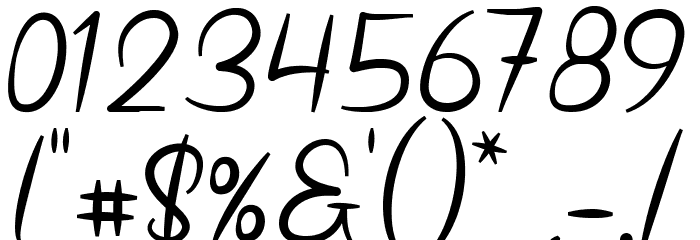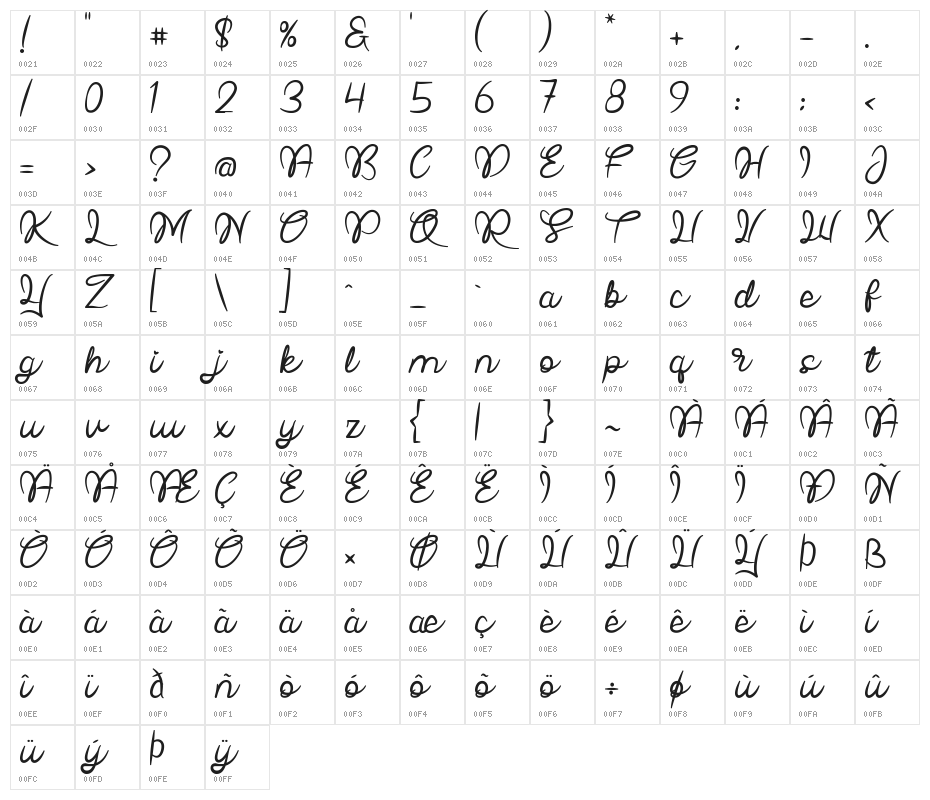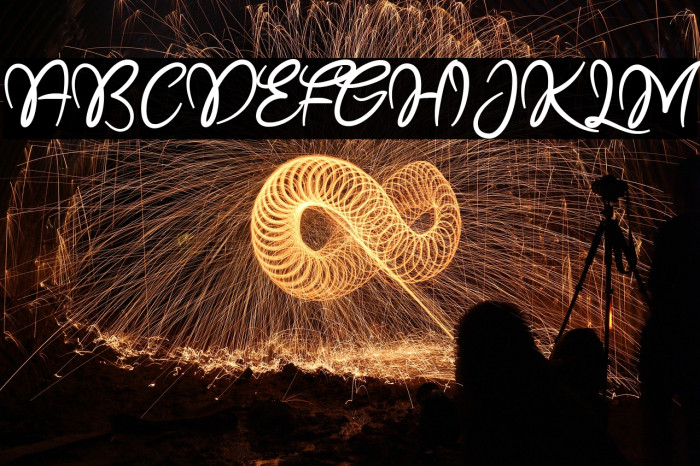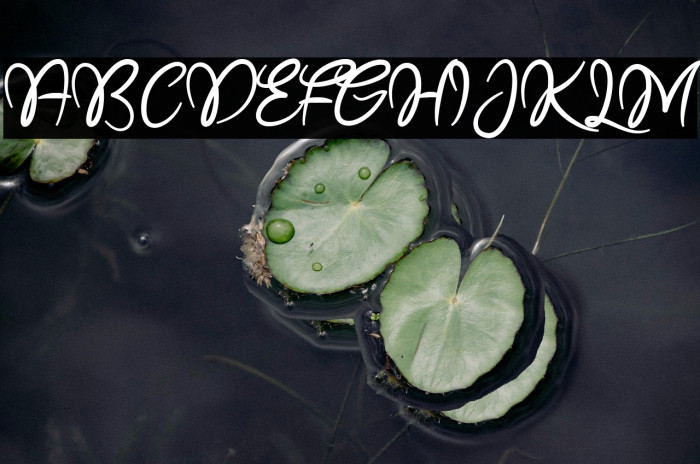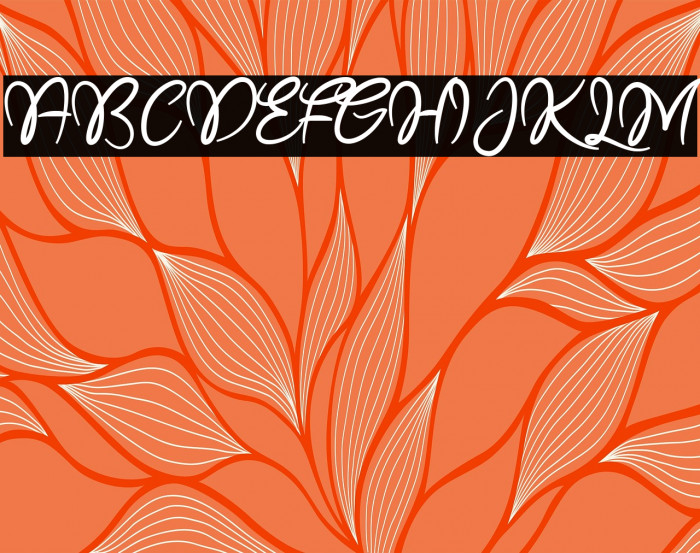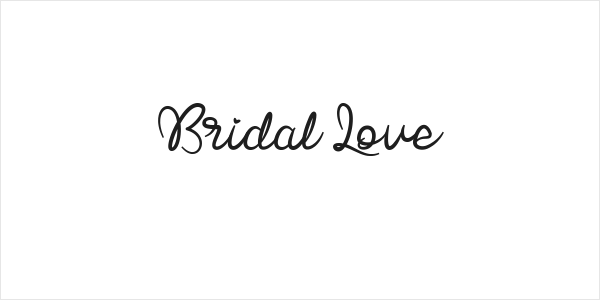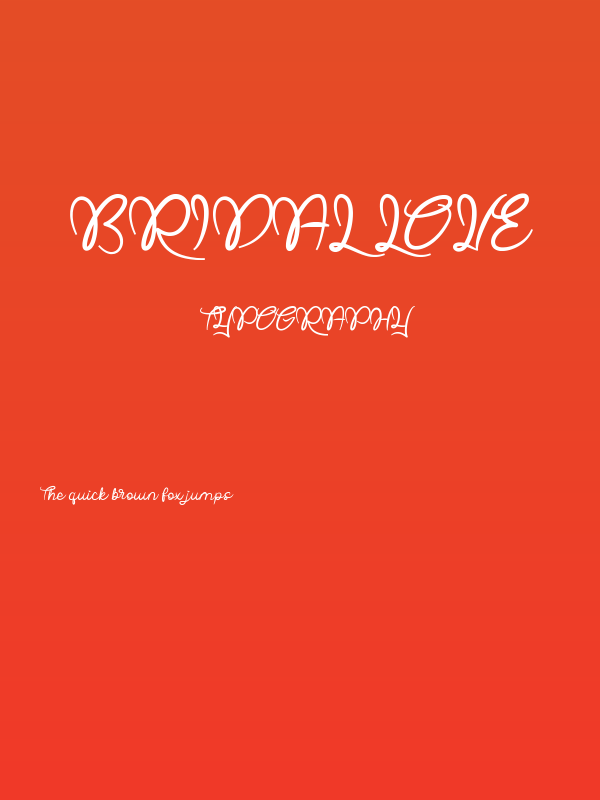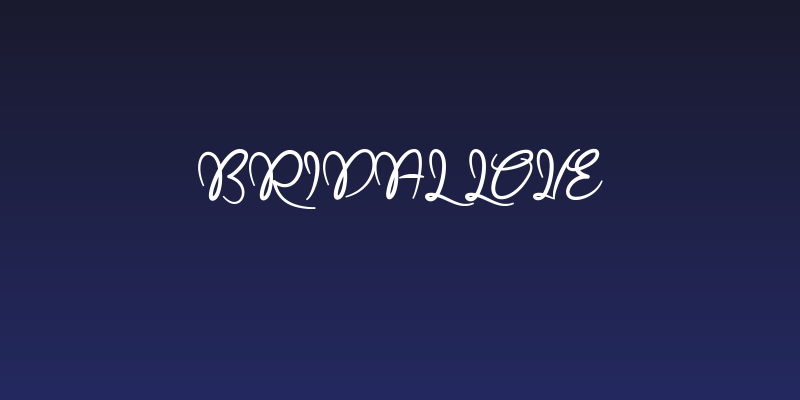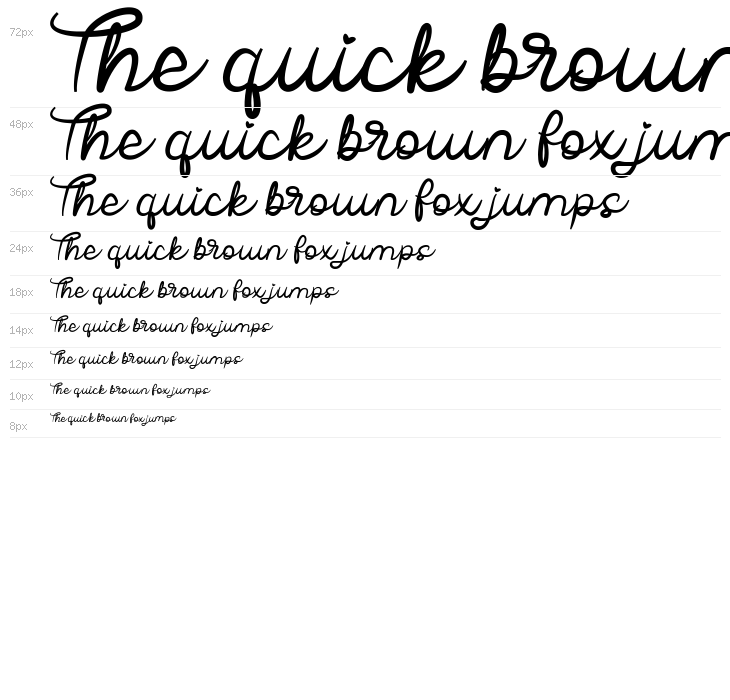
Bridal Love Font
Bridal Love Description
This font exudes elegance and romance with its flowing, cursive style. The letters are interconnected, creating a seamless and graceful appearance. The uppercase characters are particularly ornate, featuring loops and swirls that add a touch of sophistication. The lowercase letters maintain a consistent flow, complementing the uppercase with their smooth curves. Numbers and special characters are designed to match the overall aesthetic, ensuring a cohesive look across all text. The font's delicate strokes and balanced proportions make it ideal for formal and decorative uses.
| Overall Style | Romantic, Elegant |
| Use Case | Headlines, Invitations, Decorative text |
| Proposed Projects | Wedding invitations, romantic greeting cards, elegant branding, and decorative signage. |